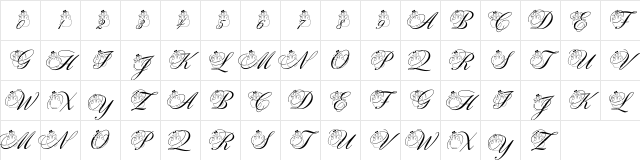
Style: pf_snowman citadel
Designer: Planck Foam
Design Context for pf_snowman citadel
pf_snowman citadel is a composed and adaptable typeface that performs quietly and consistently across a wide range of design contexts.